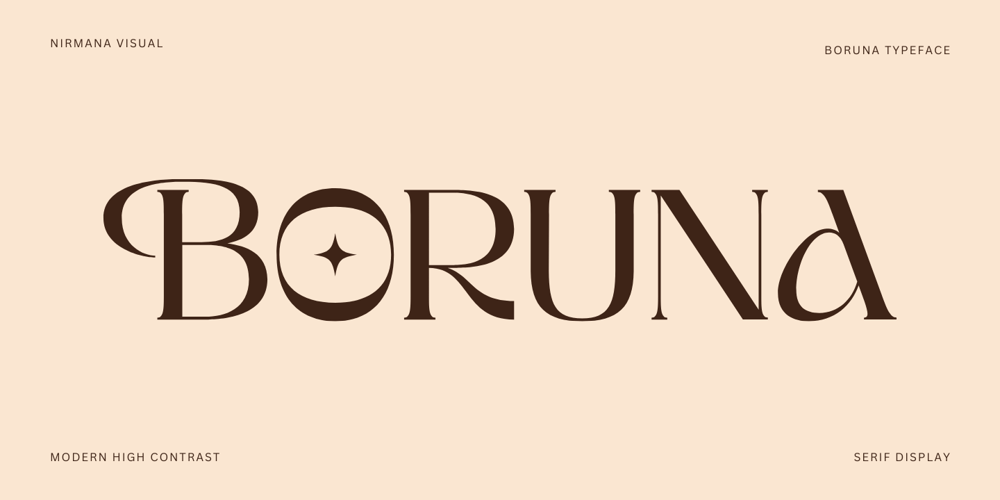
Boruna Font Family was designed by Sigit Dwipa and published by Nirmana Visual. Boruna contains 1 styles and family package options. Inspired by fashion magazine adverts, right in with bringing retroBoruna offers beautiful typographic harmony for a diversity of design projects, including logos & branding, social media posts, advertisements & product designs.